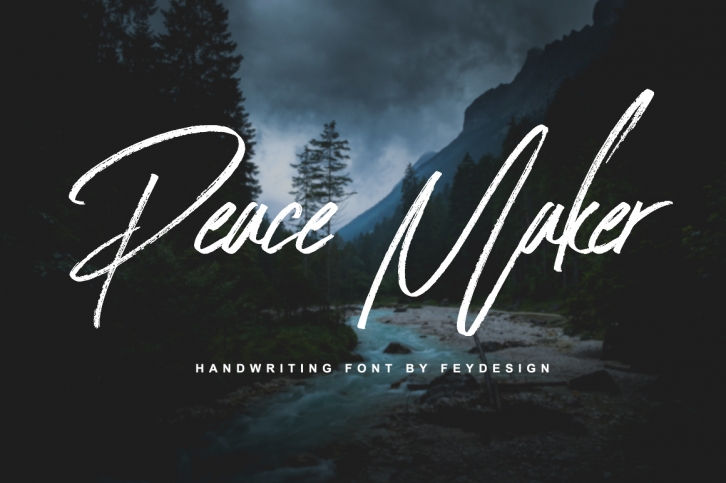
Peace Maker is a great font that was designed by feydesign. Imagine the amount of combinations you can create using this font! The archive is 2.21 MB and it was released on August 24, 2017. Peace Maker looks beautiful on wedding invitations, greeting cards, logos, posters, labels, t-shirt designs, logos, business cards and is perfect for use in ink or watercolor works, fashion, magazines, packaging and food menus, children's books and more!